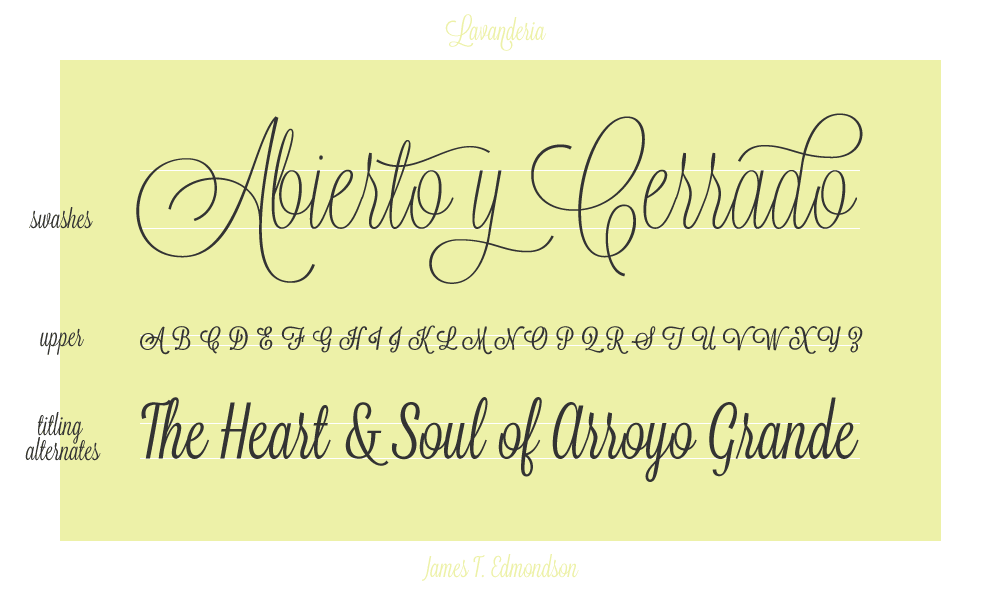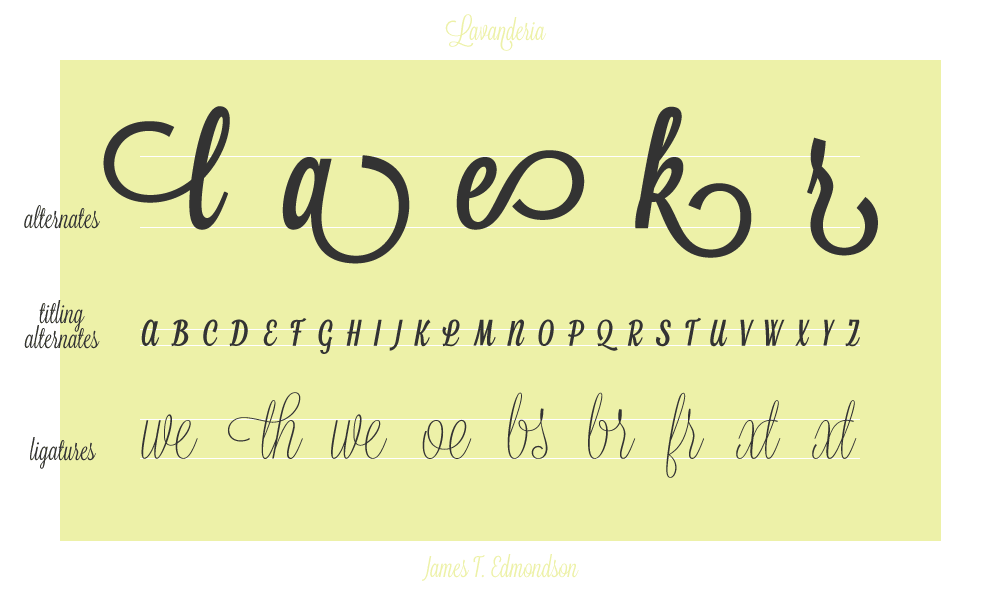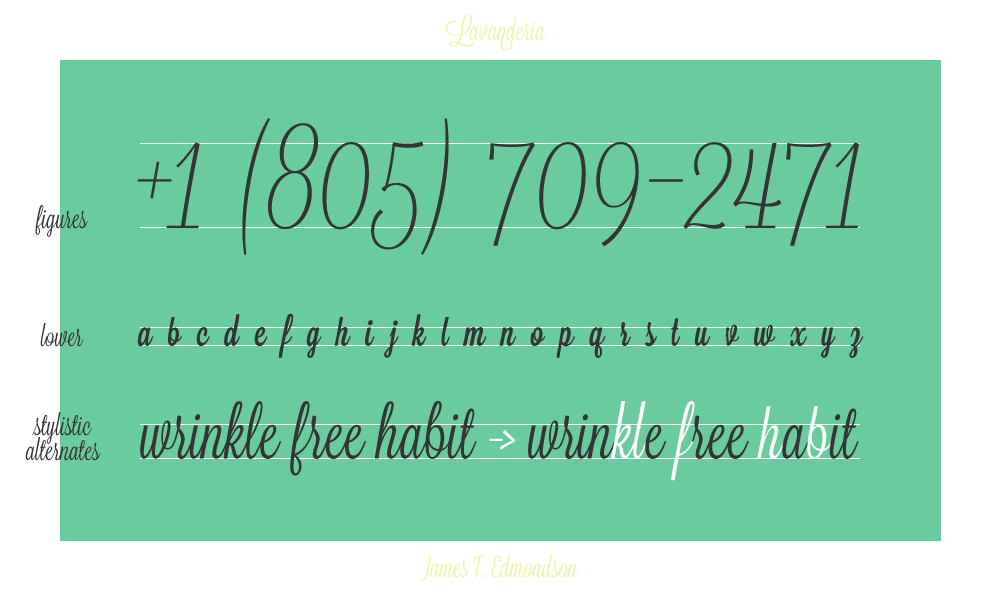
Lavanderia
A script in three weights.
Based on lettering found on Laundromat windows of San Francisco's Mission District, Lavanderia features numerous opentype features and three weights.
Designed by James T. Edmondson